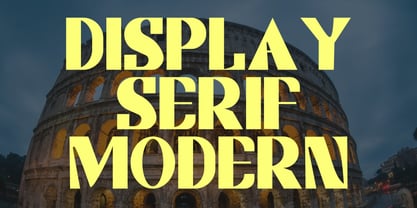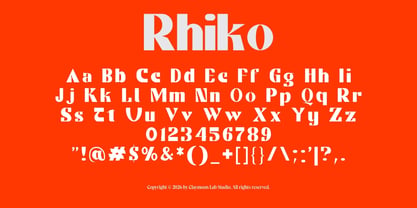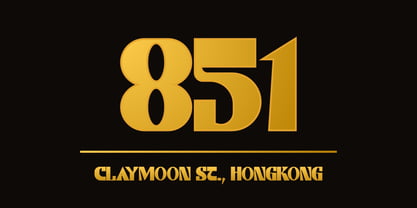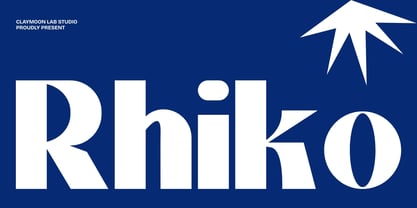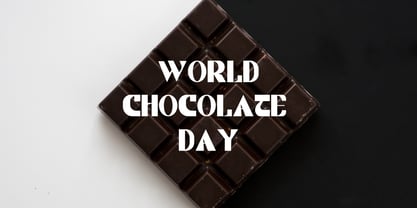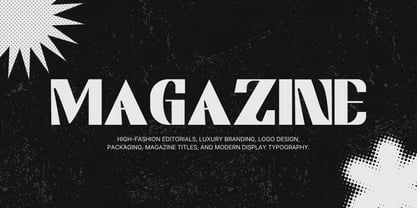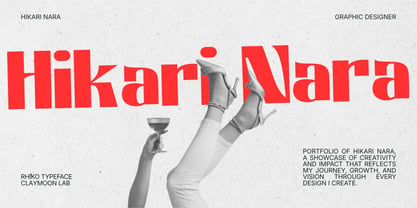
Rhiko — Ultra Bold Modern Serif Font
Make a powerful statement with Rhiko, an ultra-bold modern serif font designed for maximum visual impact. Featuring a heavy, high-contrast weight and sharp, geometric terminal cuts, this typeface bridges the gap between classic elegance and contemporary edge. Its distinctive stencil-like details provide a unique typographic character that instantly draws the eye, making it a standout choice for commanding digital spaces.
Rhiko thrives in large-scale applications where strong, confident typography is required. Whether you are designing high-fashion magazine titles, modern editorial layouts, or striking brand identities, this font delivers a sophisticated yet assertive aesthetic that elevates any creative project.
Perfect For These Projects:
* Editorial & Magazine Design: Creating high-impact headlines, publication covers, and high-fashion editorial spreads.
* Branding & Logo Design: Crafting bold brand identities, modern wordmarks, and strong corporate typography.
* Packaging & Label Design: Developing striking product packaging, food labels, and luxury box designs.
* Digital & Web Typography: Designing commanding website headers, digital portfolios, and modern UI elements.
* Social Media Content: Composing aesthetic digital campaigns, event announcements, and dynamic social media graphics.